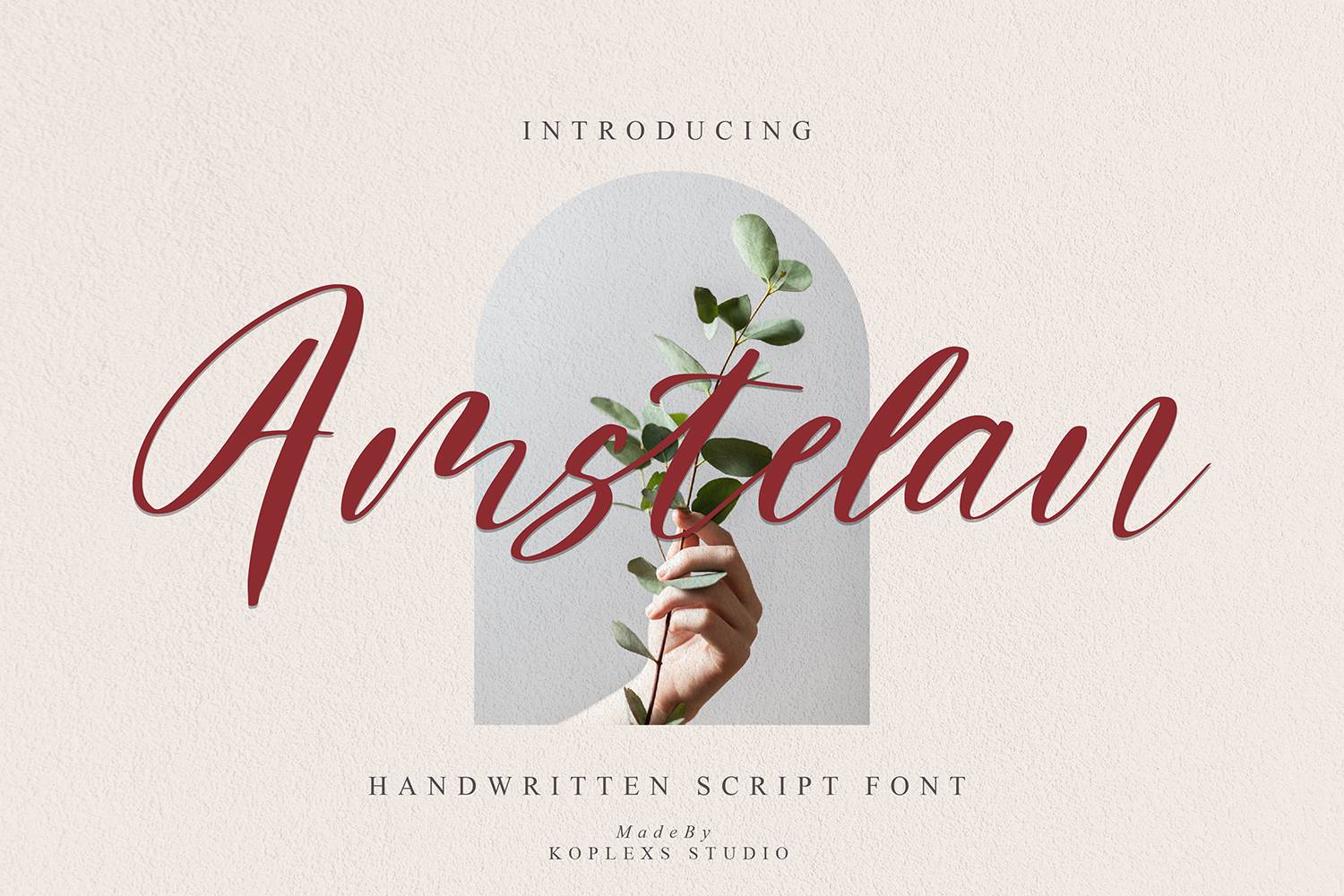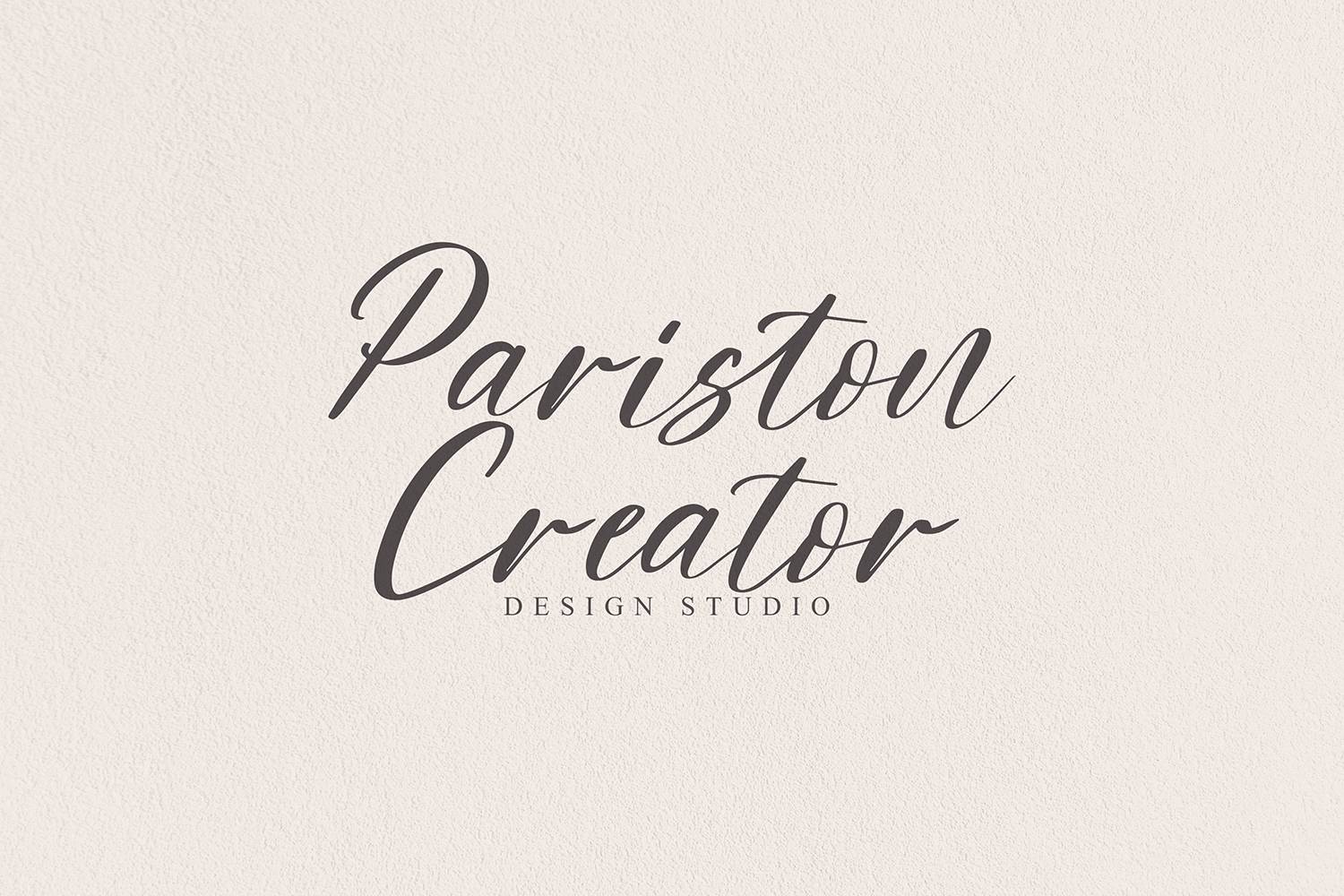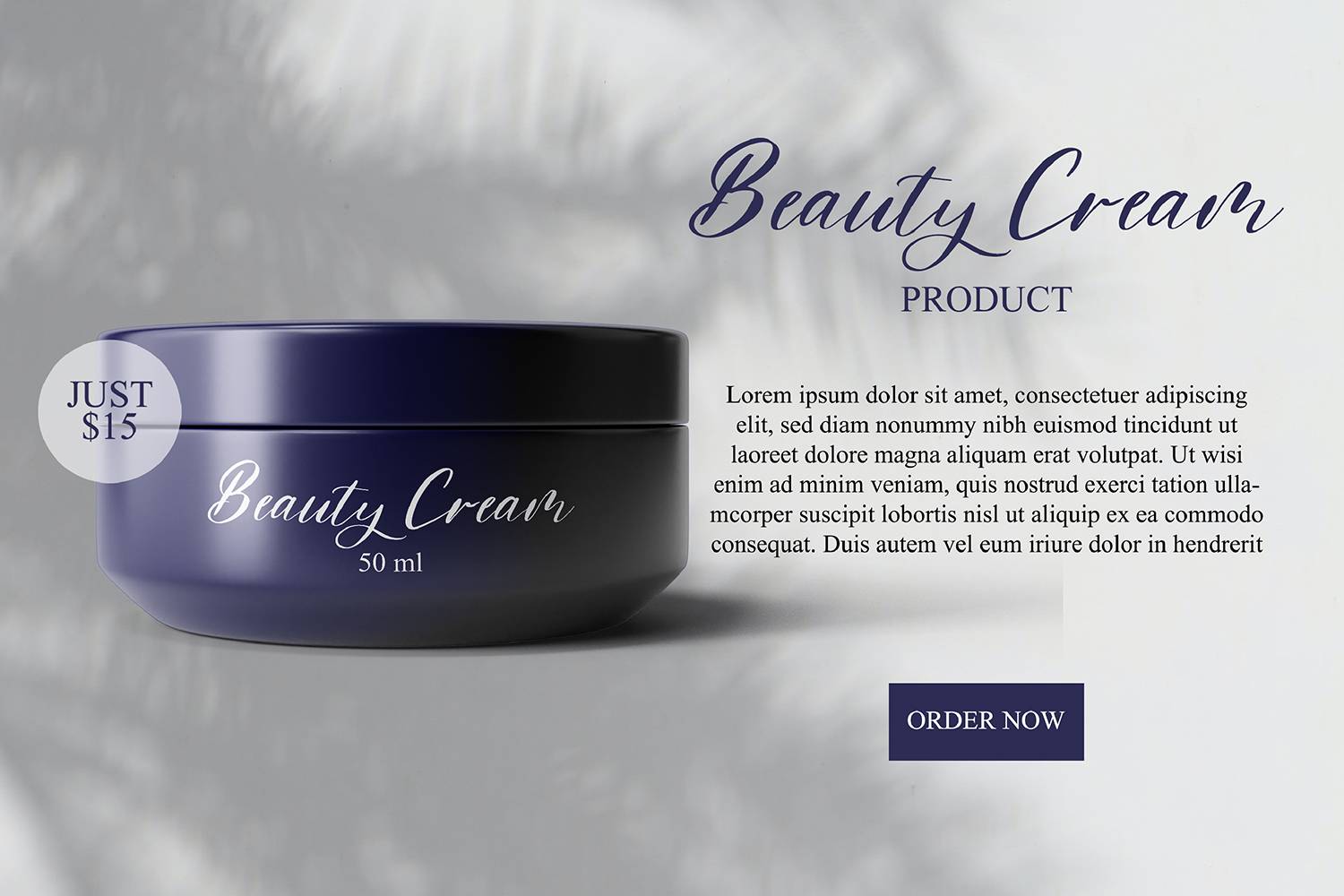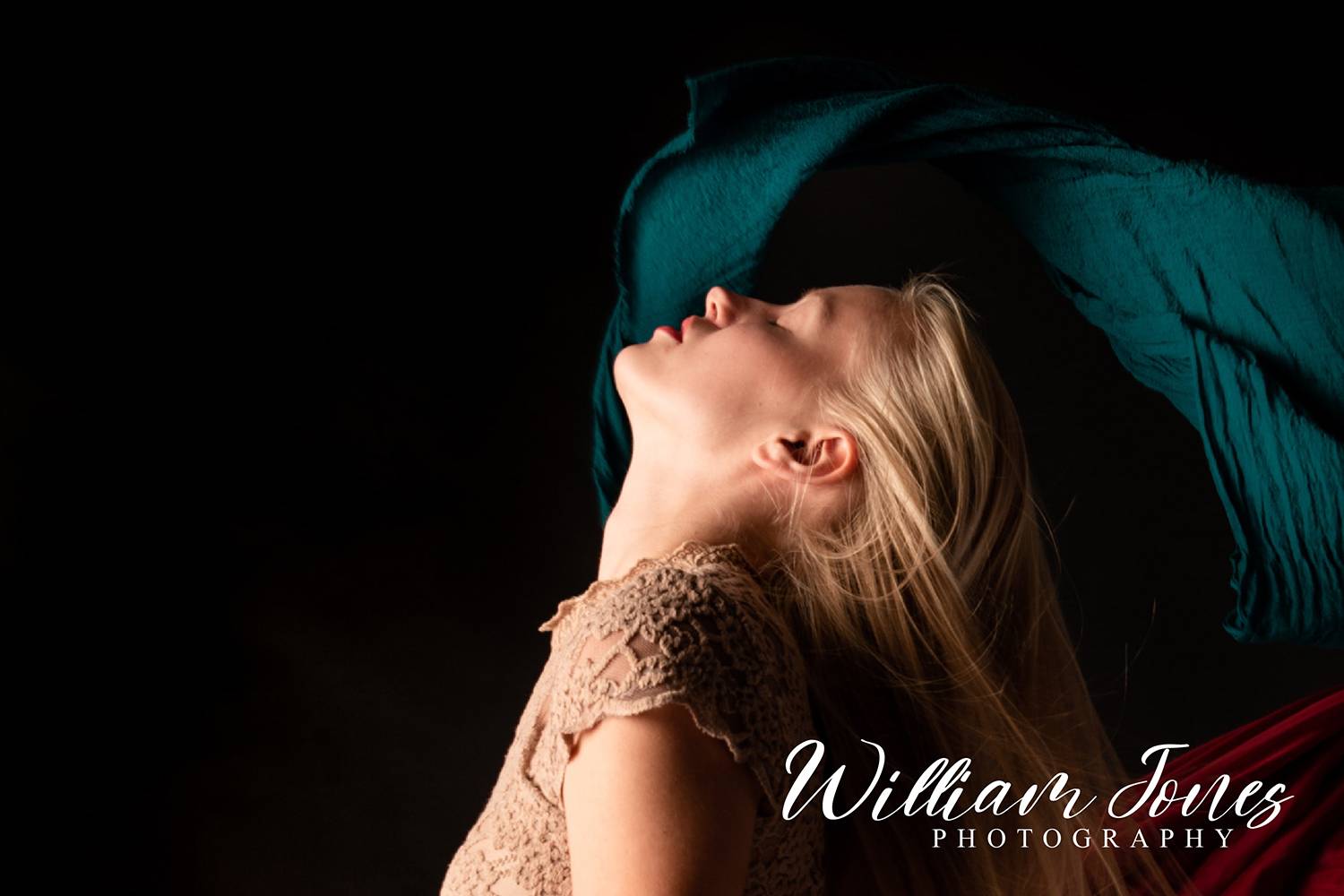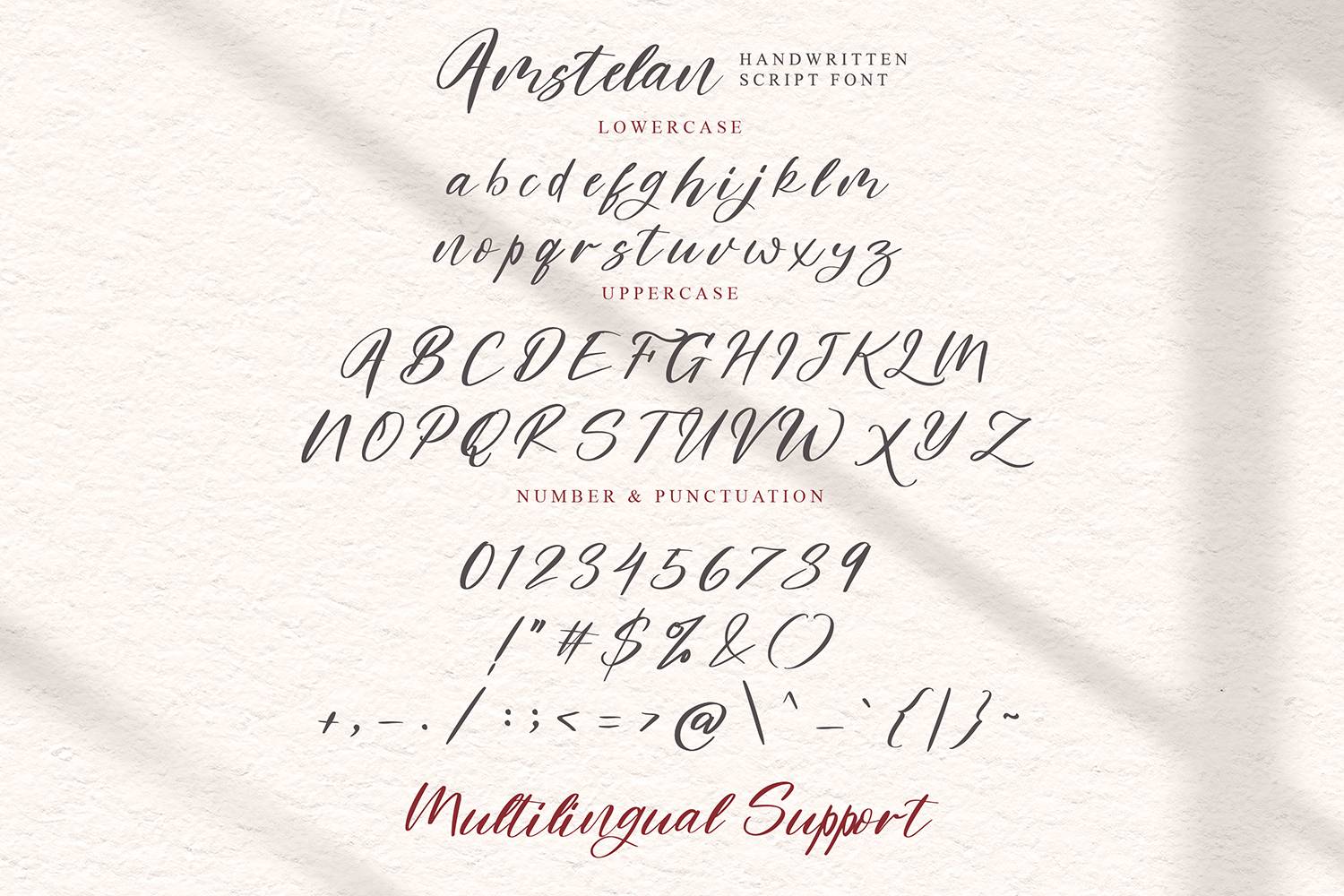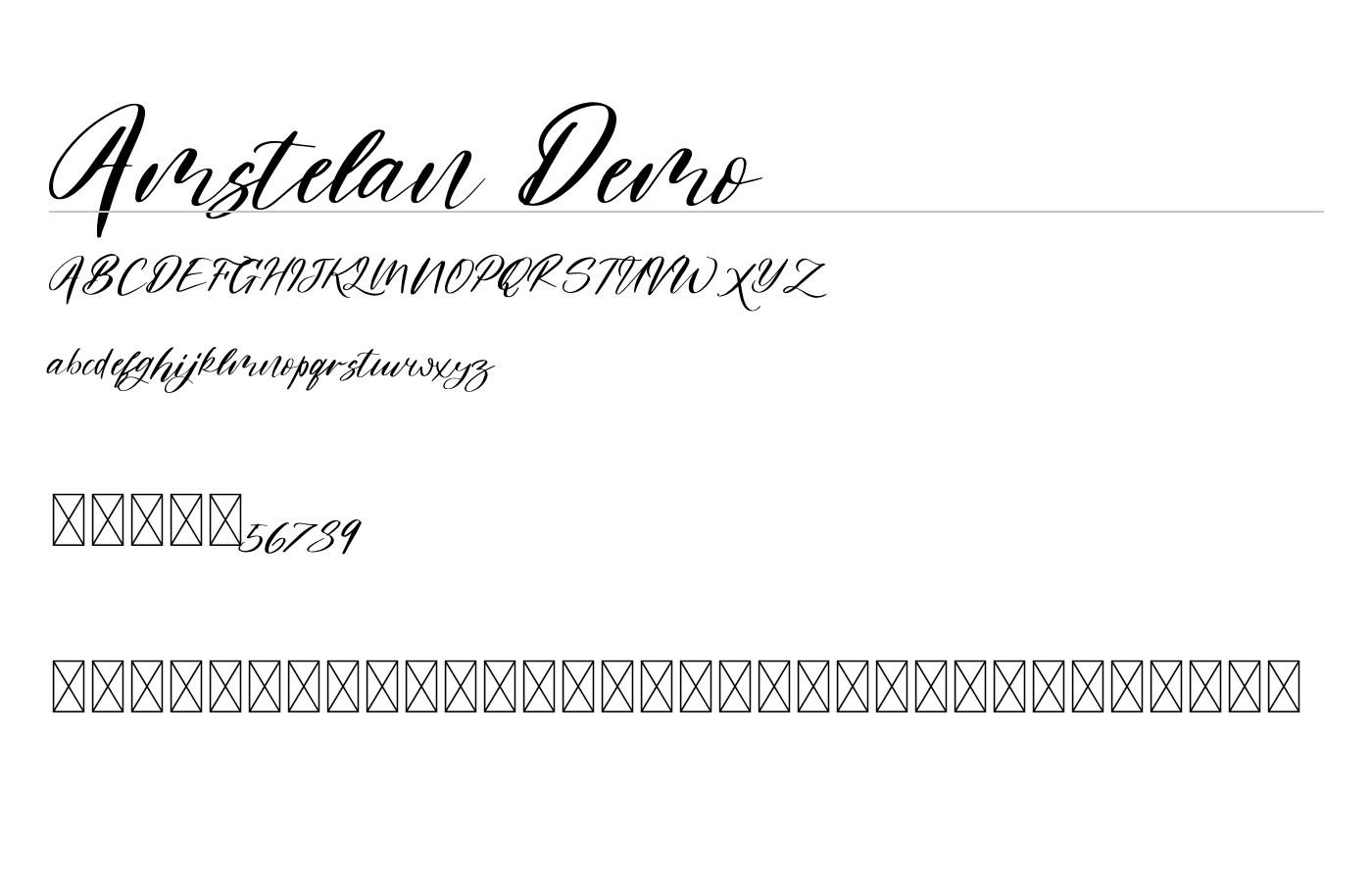
Amstelan is an elegant script font characterized by its fluid, calligraphic strokes and graceful, slightly condensed letterforms. Its high contrast between thick and thin lines, along with stylish swashes, lends a sophisticated and romantic feel, making it ideal for wedding invitations, branding, and upscale editorial projects where a refined, personal touch is desired.
Amstelan Font
About Amstelan Font
| Font family | Amstelan Font |